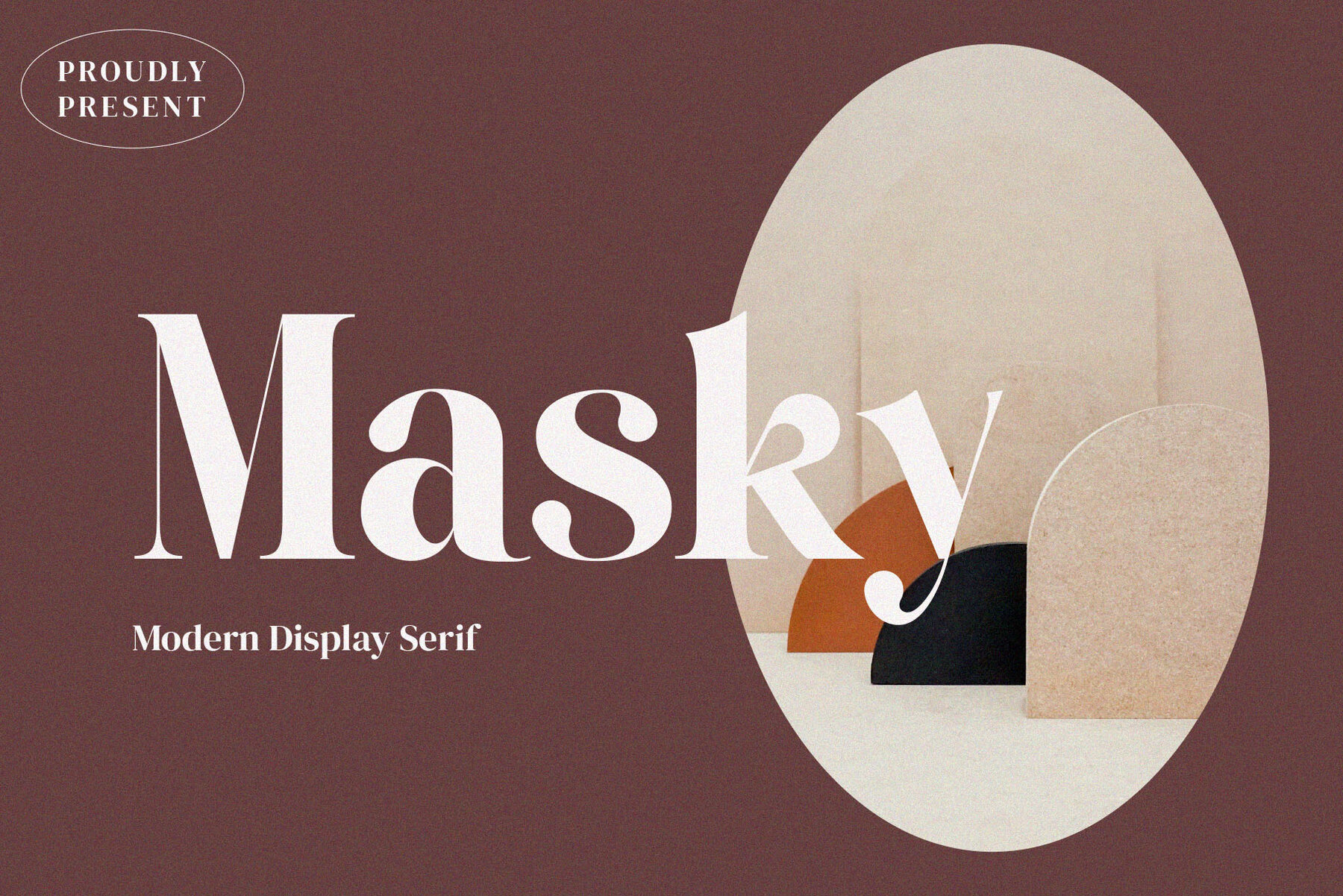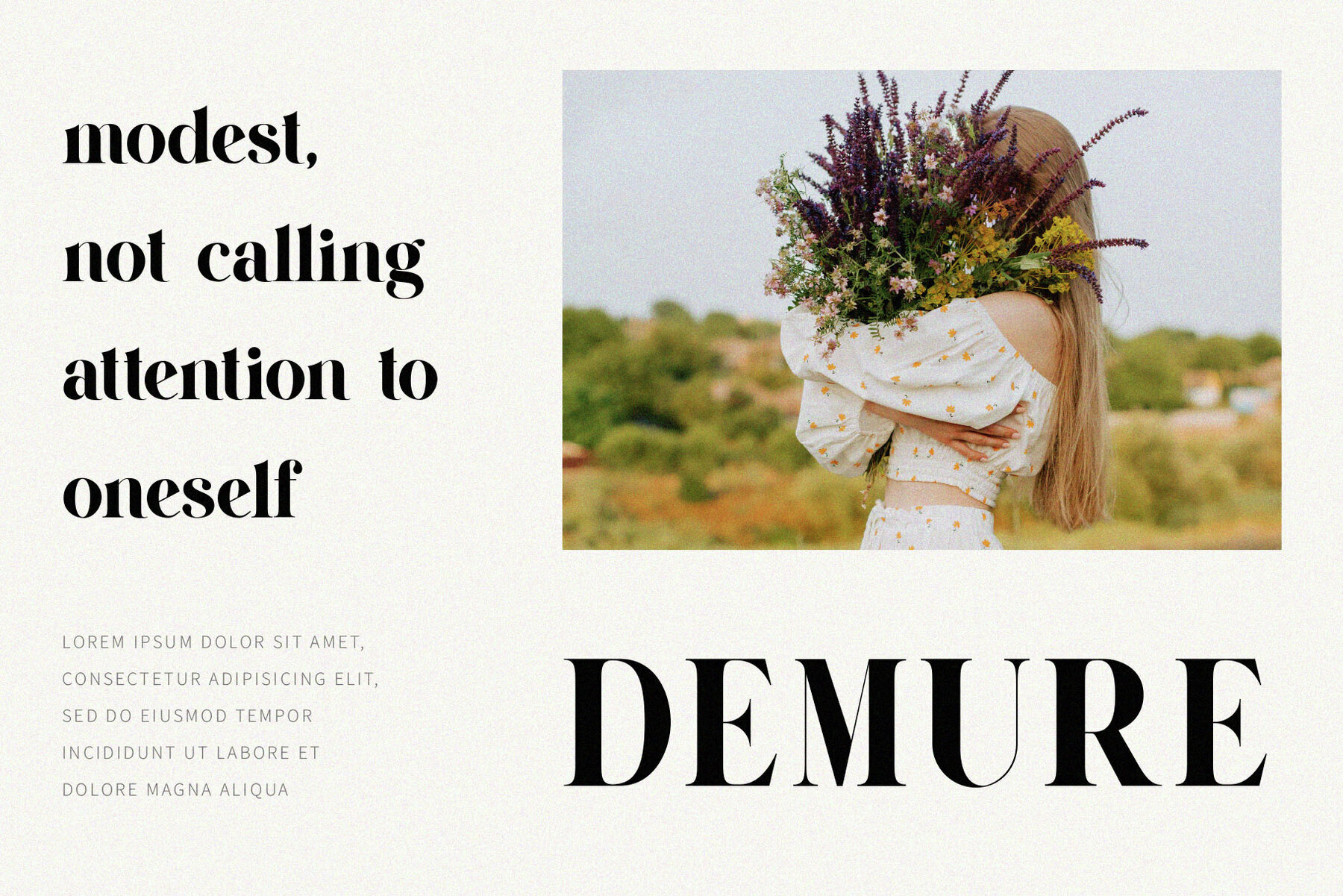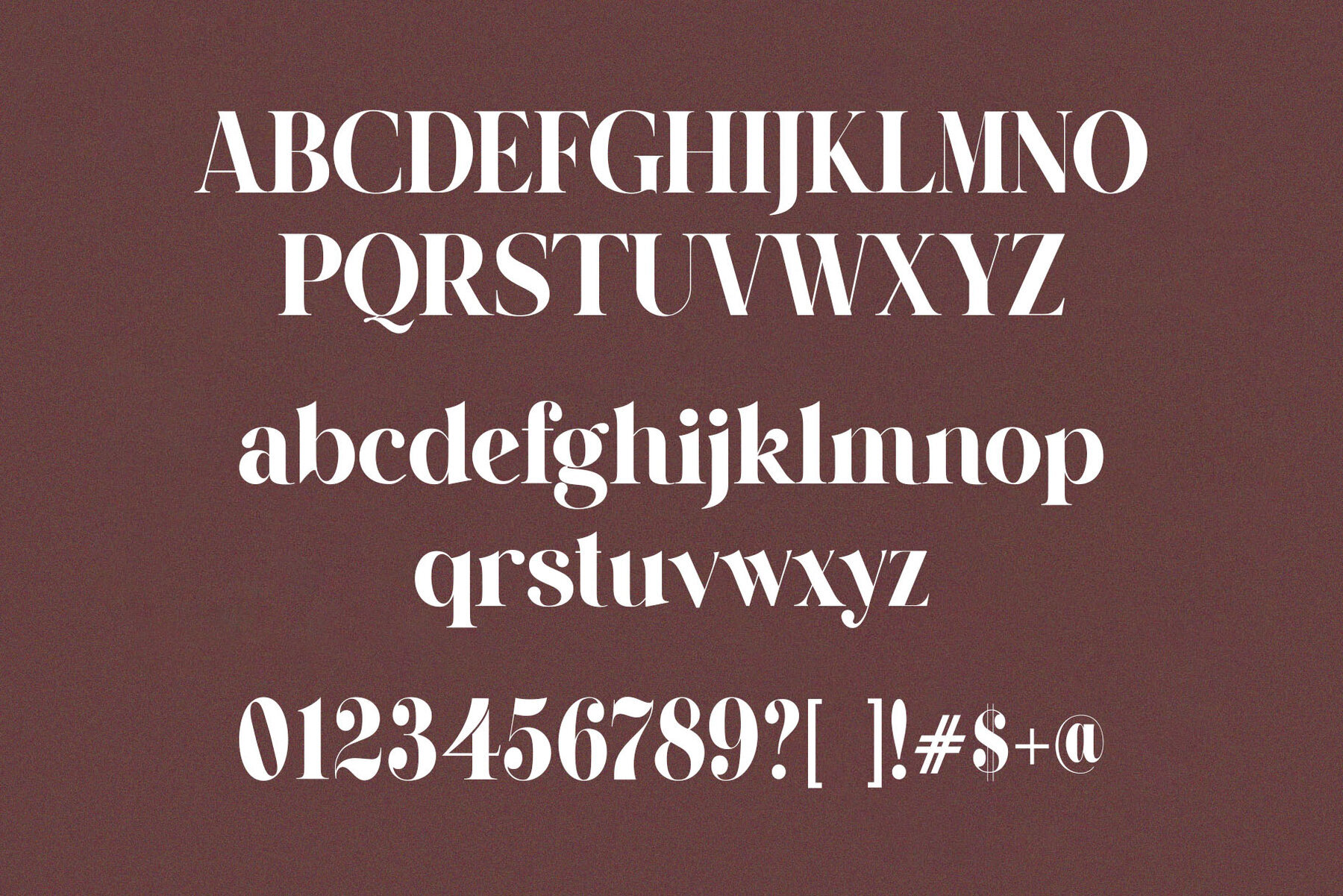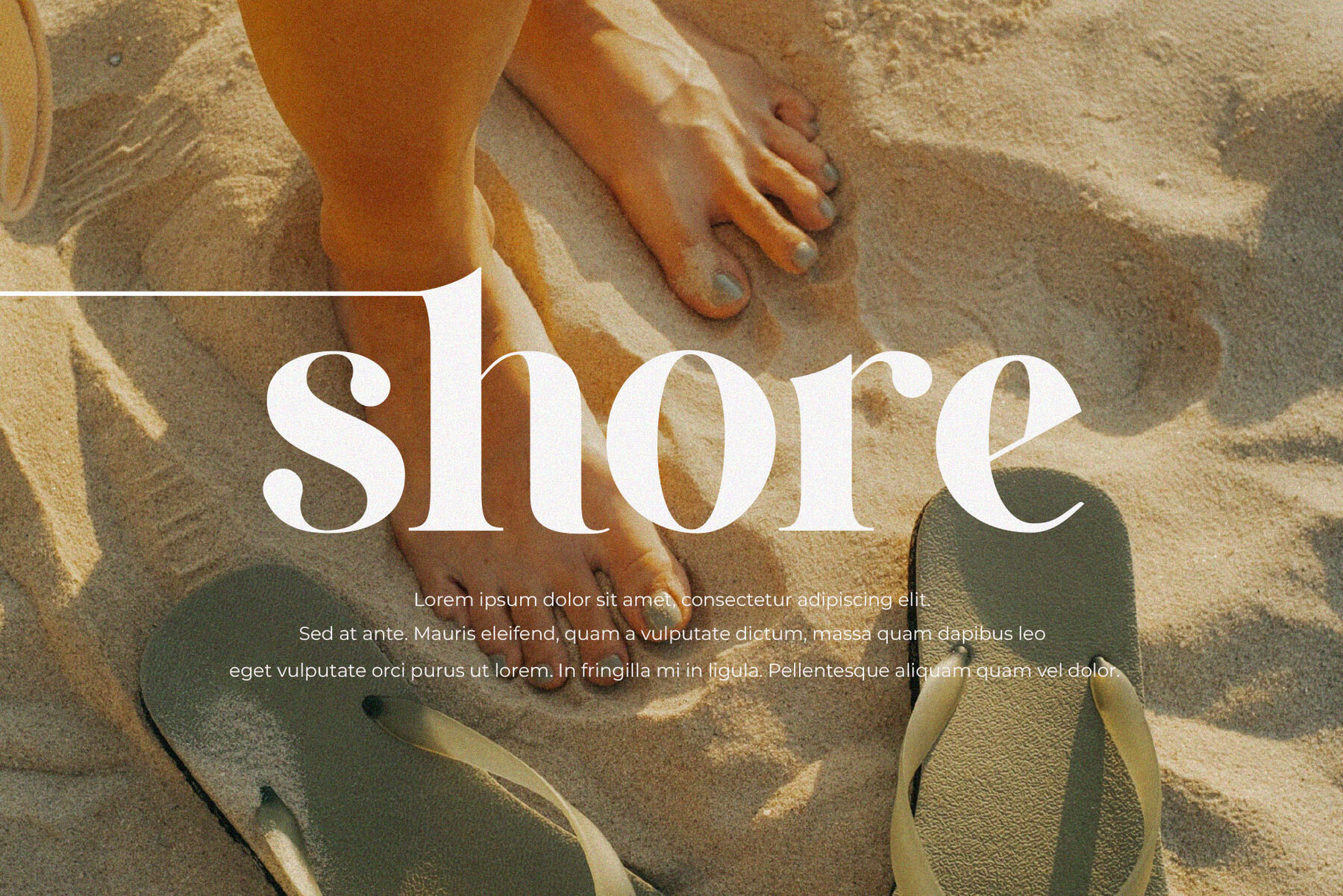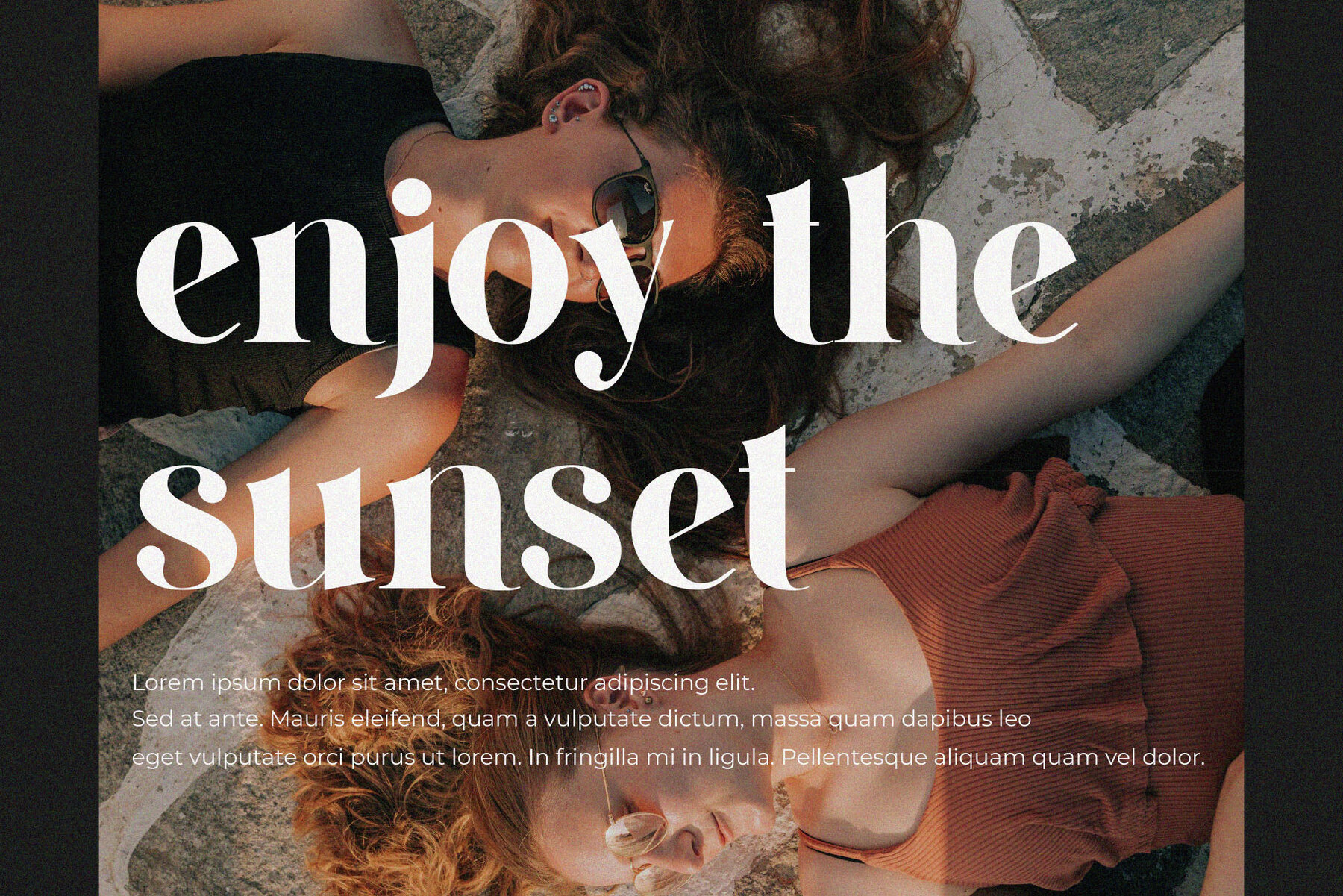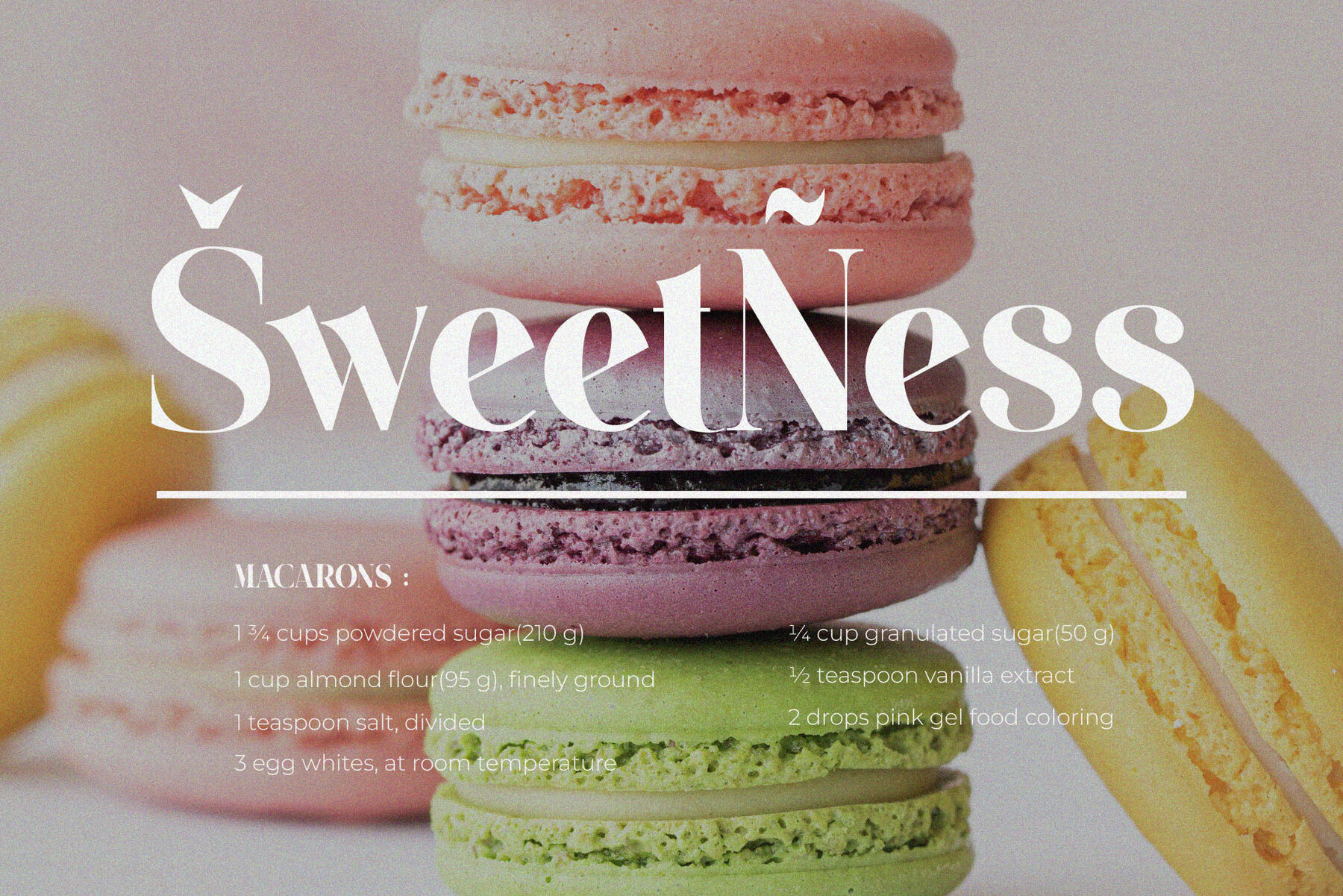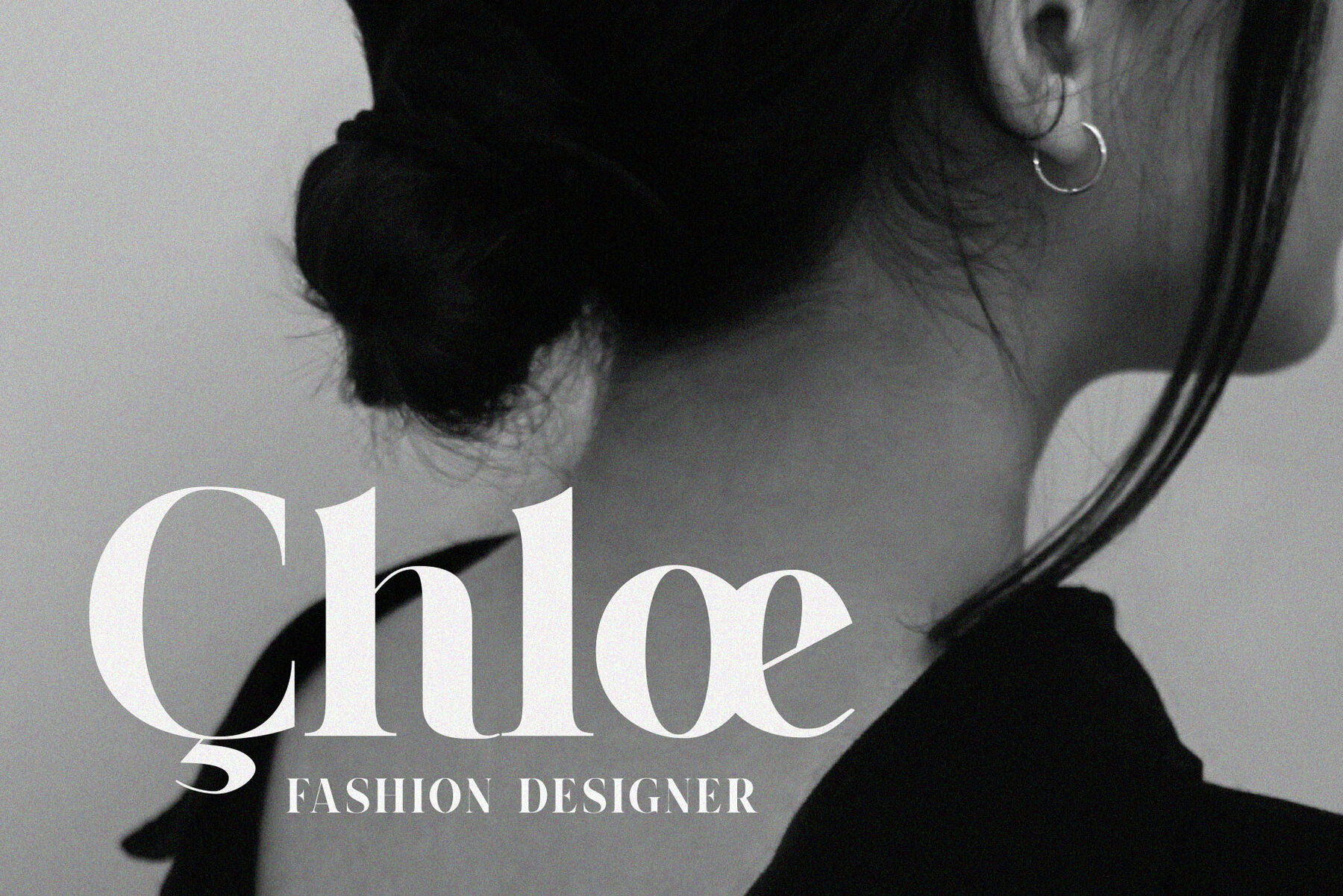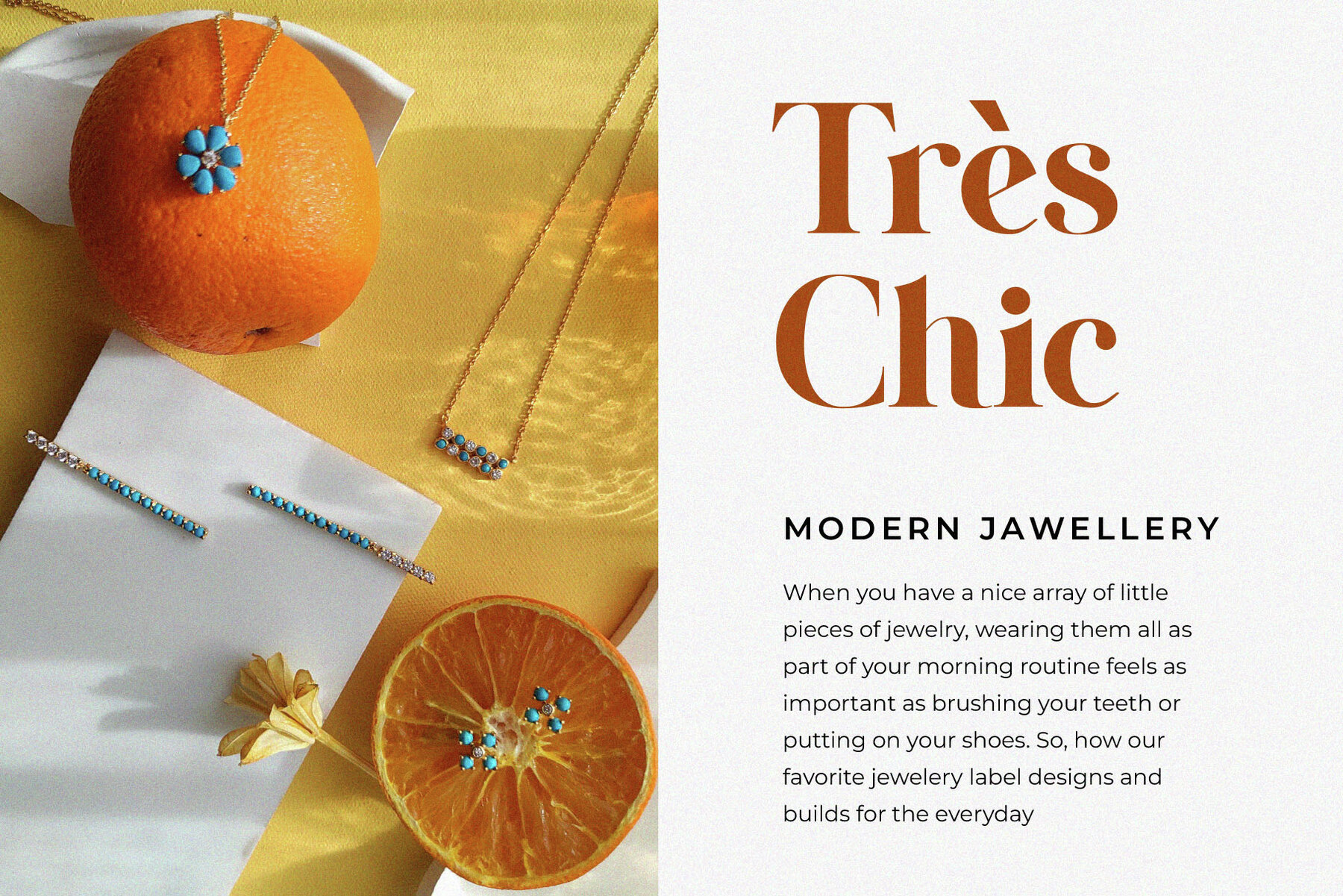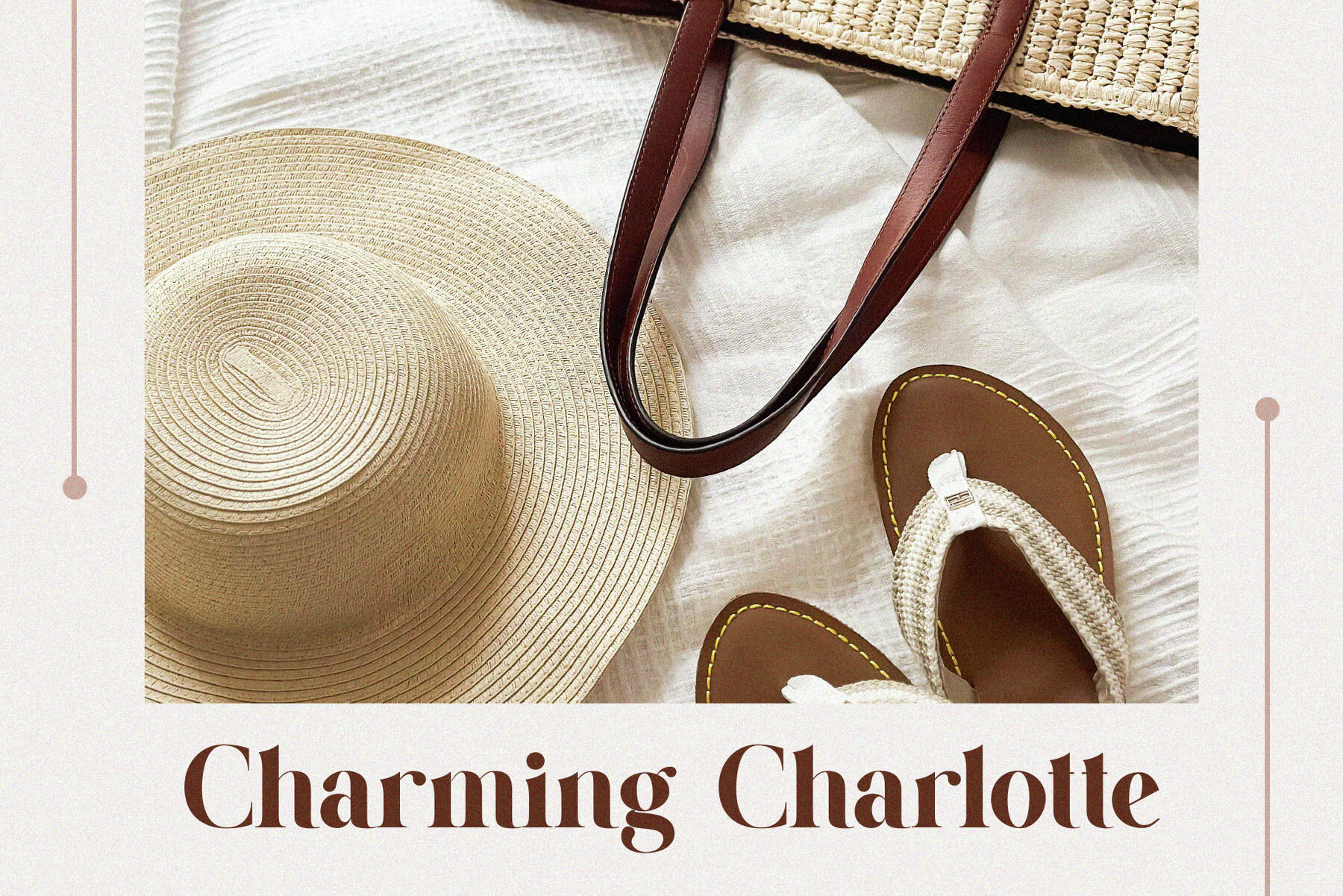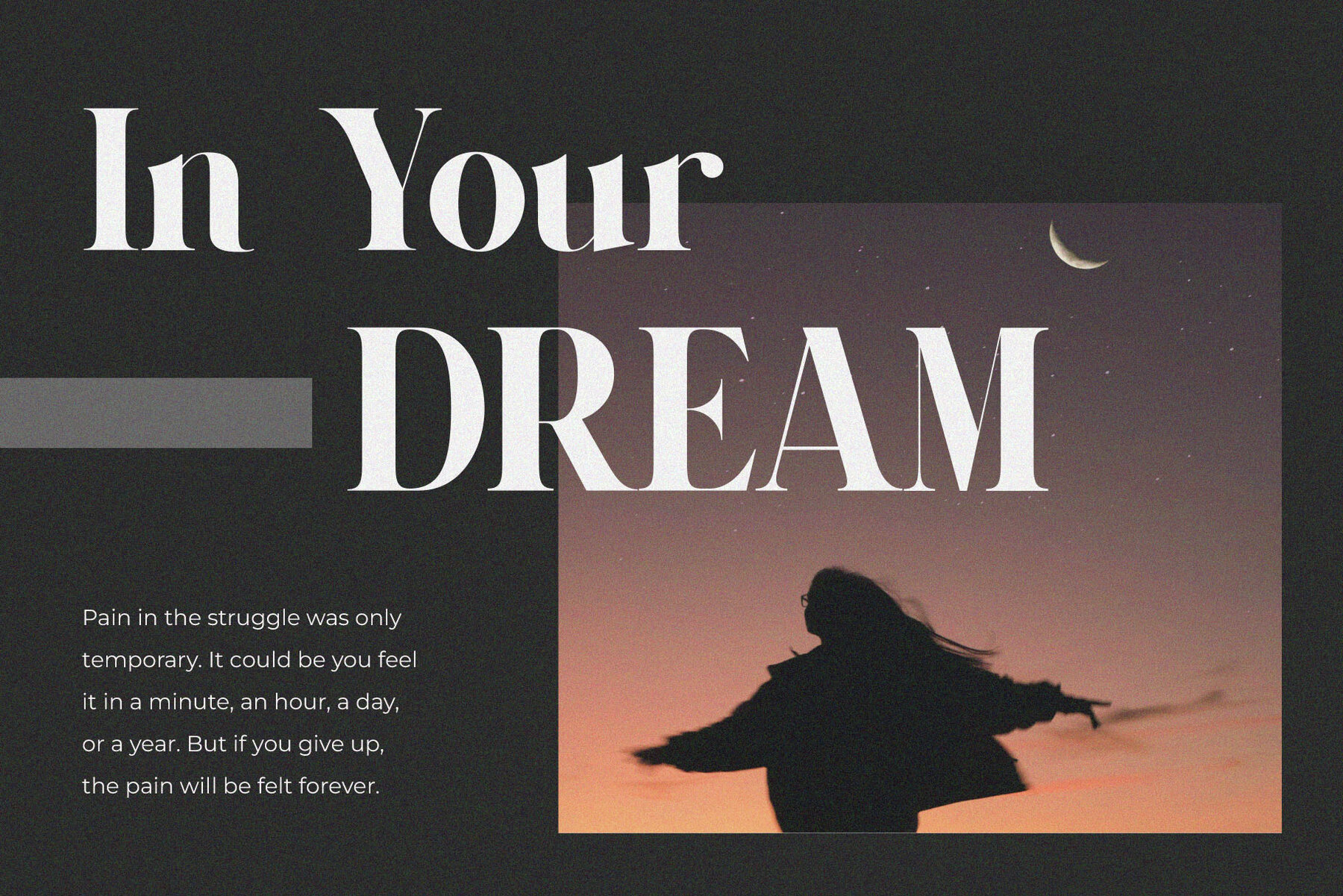
Masky Font
Masky Regular
Masky by Graphicxell draws inspiration from renowned minimalist logos, making it an ideal choice for various design applications. Whether you are working on templates, brochures, videos, advertising, branding, logos, invitations, layout designs, elegant crafts, beauty design, or more, Masky offers a versatile solution to meet your creative needs.Masky by Graphicxell: Minimalist Logo Inspiration